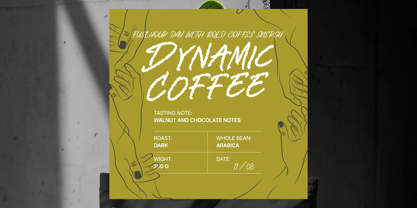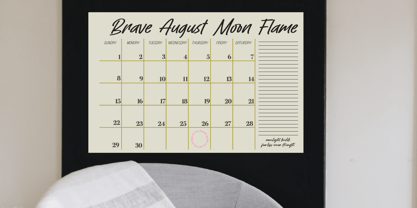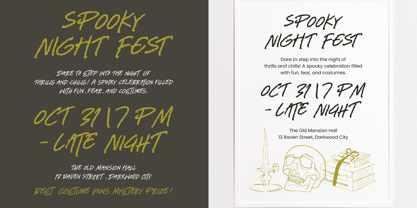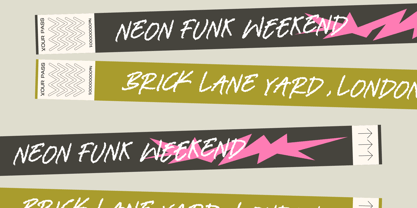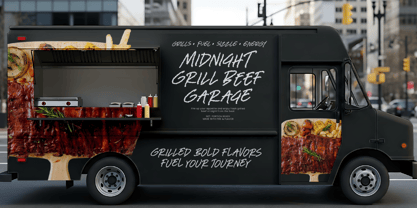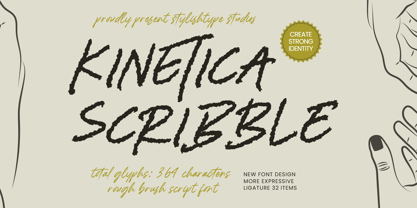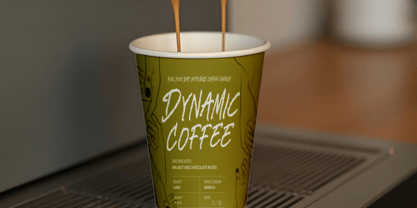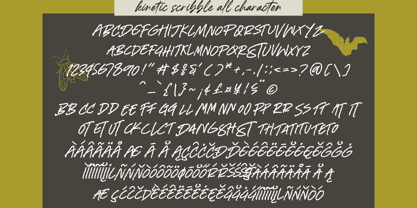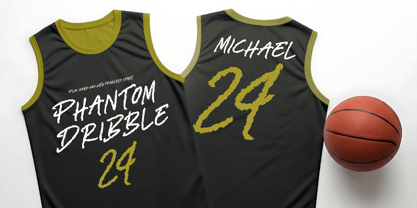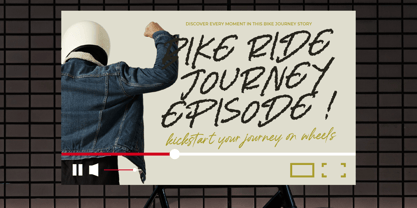
Kinetica Scribble
The Kinetica Scribble Font Family was designed by Heru Utama Putra and published by Stylishtype Studio. Kinetica Scribble contains 2 styles and family package options. More about this family
Kinetica Scribble – Rough Brush Script captures the essence of authentic hand-drawn artistry with its distinctive textured edges and high-octane personality. This rough brush script allows creators to break away from sterile digital typography and embrace a gritty, urban aesthetic. Every stroke of Kinetica Scribble – Rough Brush Script conveys a sense of spontaneous creativity, making it an essential tool for building a powerful visual identity that feels both personal and professional.
Global accessibility meets uncompromising style to ensure your message resonates everywhere. With its extensive multilingual support, Kinetica Scribble – Rough Brush Script adapts seamlessly across global markets, making it incredibly versatile for international projects. This high-impact typeface provides the technical flexibility needed for modern marketing campaigns while maintaining its unfiltered character. Whether you are targeting a local niche or a worldwide audience, Kinetica Scribble – Rough Brush Script ensures your brand voice remains consistent and culturally relevant across all platforms.